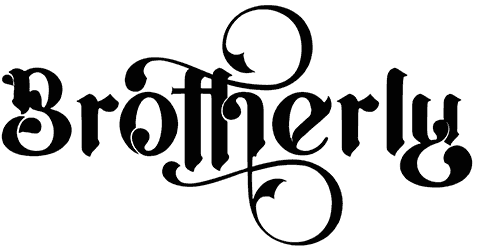
Brotherly Font
Enchant your viewers and reveal your artistic talents with this rich and decorative Gothic font. The beautiful, curvy letters with capturing details are going to become a mesmerizing part of your layout. You don’t have numbers, but Brotherly will remain a perfect option for many designs like branding, business cards, flyers, and so forth.